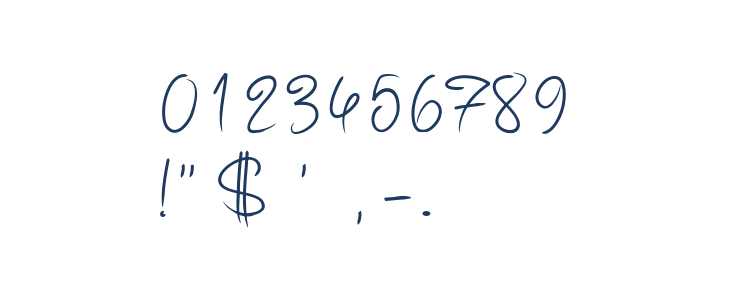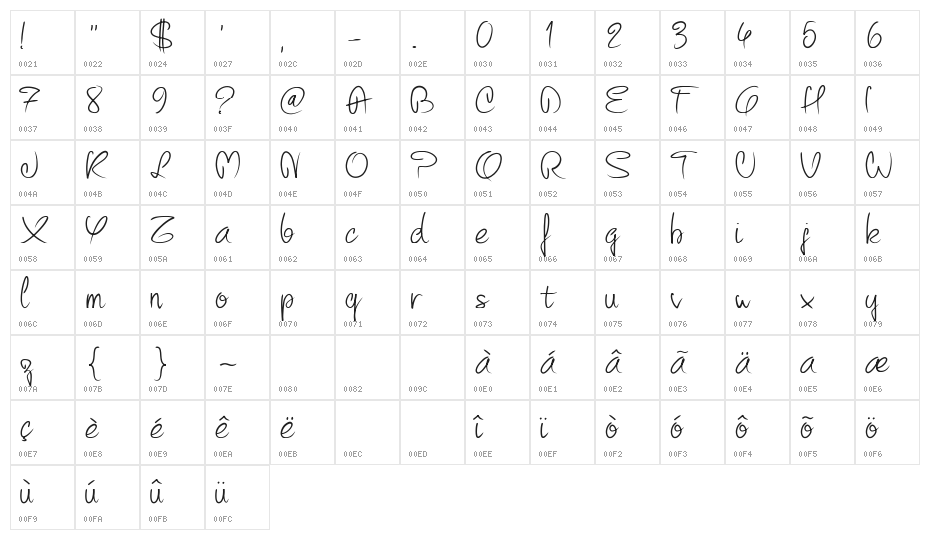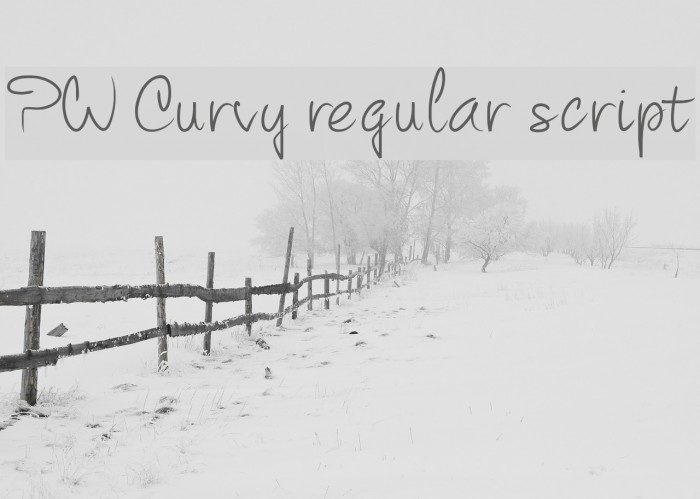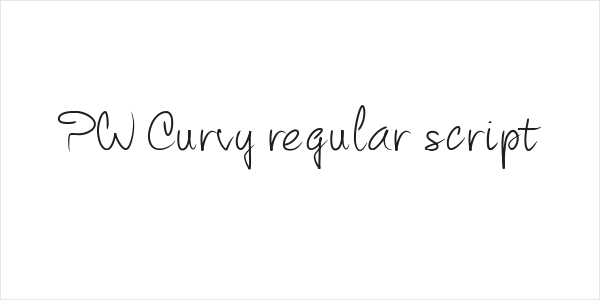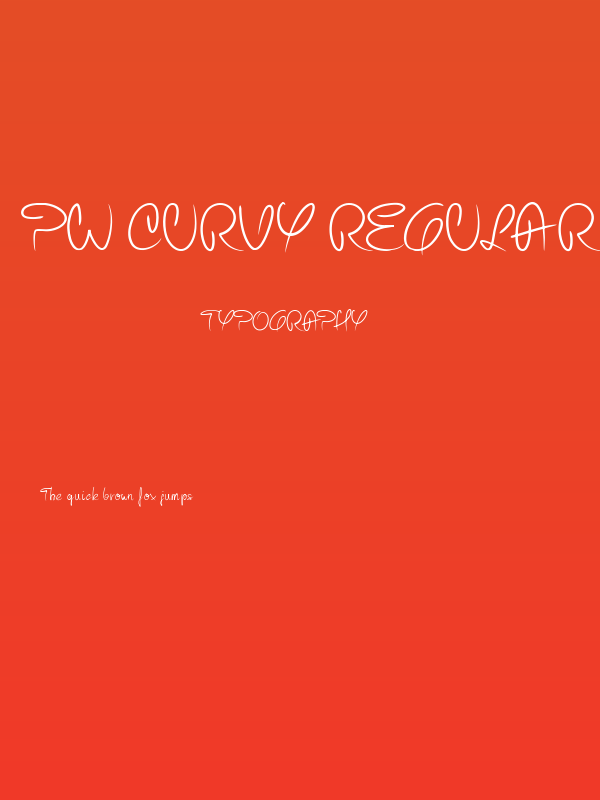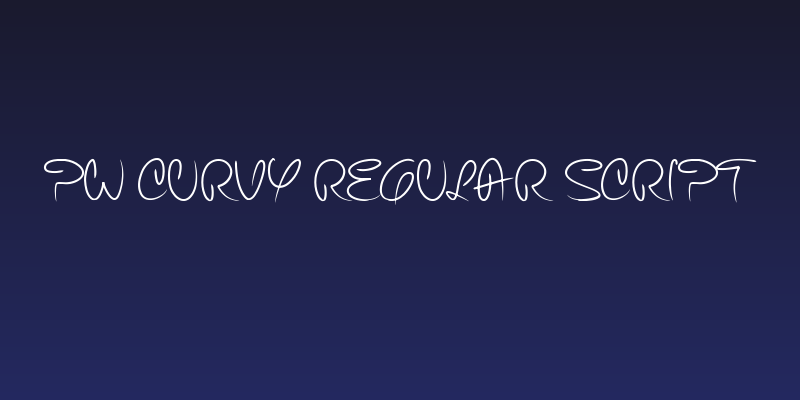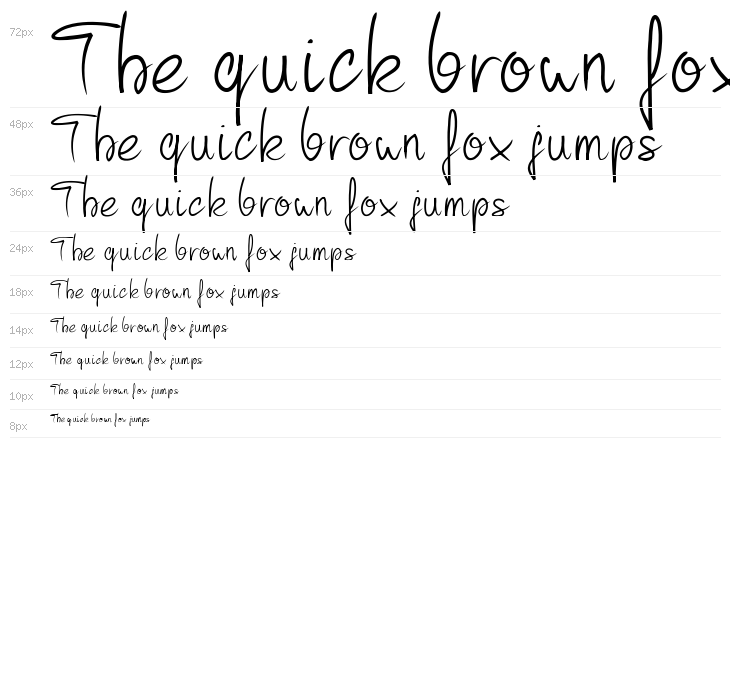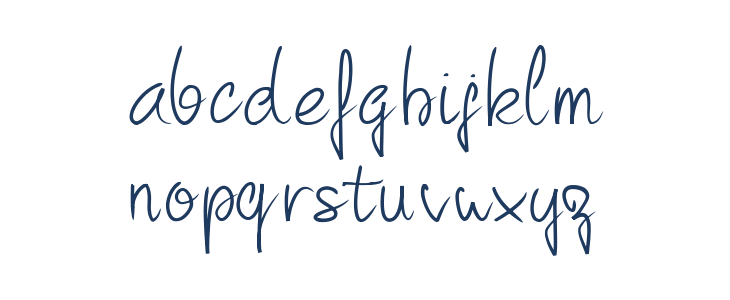
PW Curvy regular script Font
PW Curvy regular script Description
This font features a flowing, cursive style with elegant curves and loops, giving it a handwritten appearance. The letters are interconnected, creating a seamless and fluid look. The uppercase characters are bold and prominent, while the lowercase letters maintain a consistent flow with a slightly more delicate touch. The numerals are distinct yet harmonize well with the overall script style. Special characters are creatively integrated, maintaining the font's cohesive aesthetic. This font exudes a sense of sophistication and personal touch, making it ideal for projects that require a personal or artistic flair.